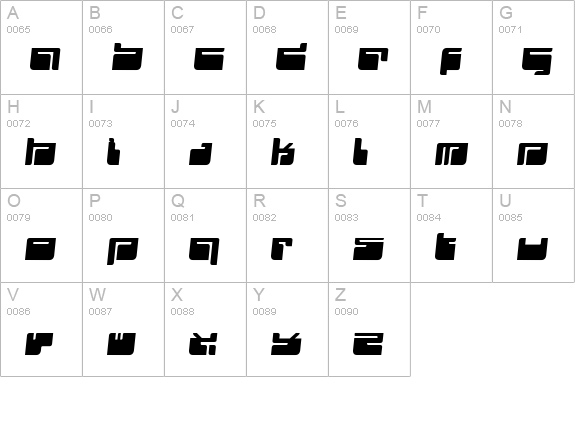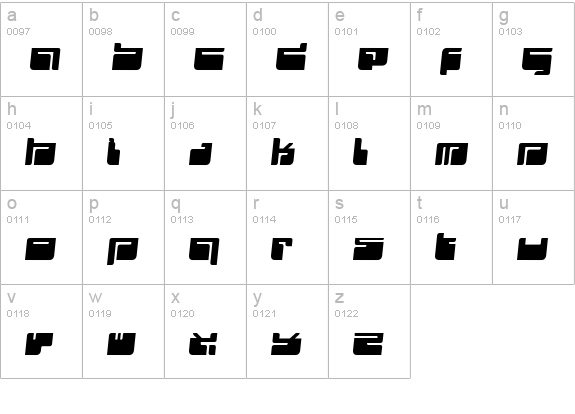
Introducing FUTU font, a sleek and modern typeface that exudes sophistication and elegance. With its clean lines and contemporary aesthetic, FUTU is perfect for a wide range of design projects, from branding to editorial work. This versatile font offers a perfect balance of style and readability, making it a great choice for both digital and print applications. What sets FUTU font apart is that it is not only visually stunning, but also free to download. That's right, you can get your hands on this beautiful typeface at no cost on FontsMarket.com. Whether you're a designer on a budget or simply looking for a high-quality font to add to your collection, FUTU is the perfect choice. Download it now and elevate your designs with this exceptional font.